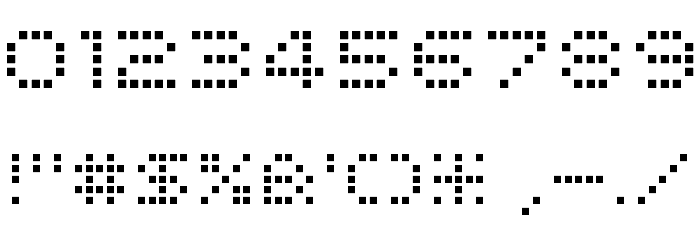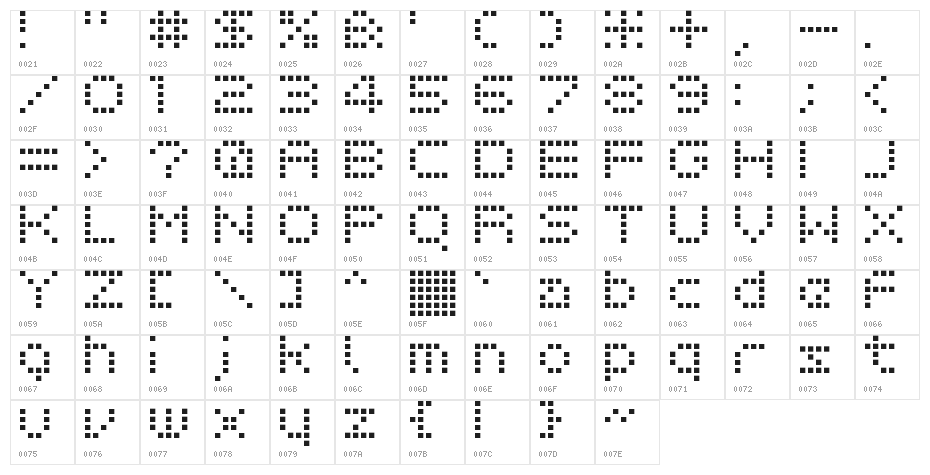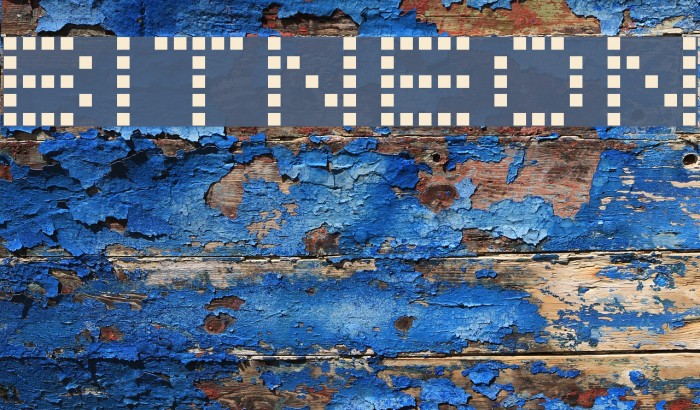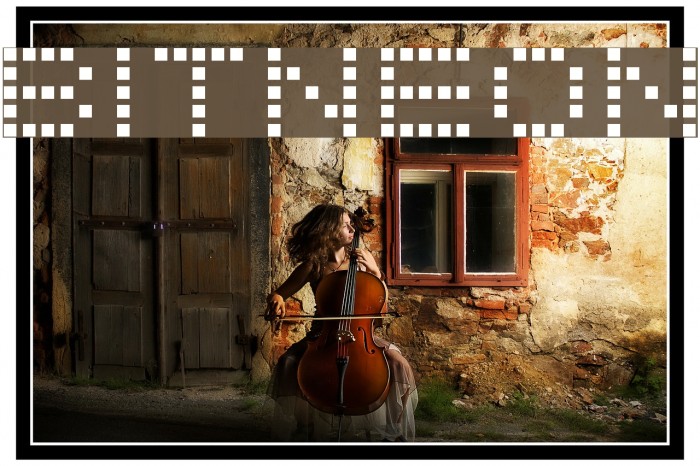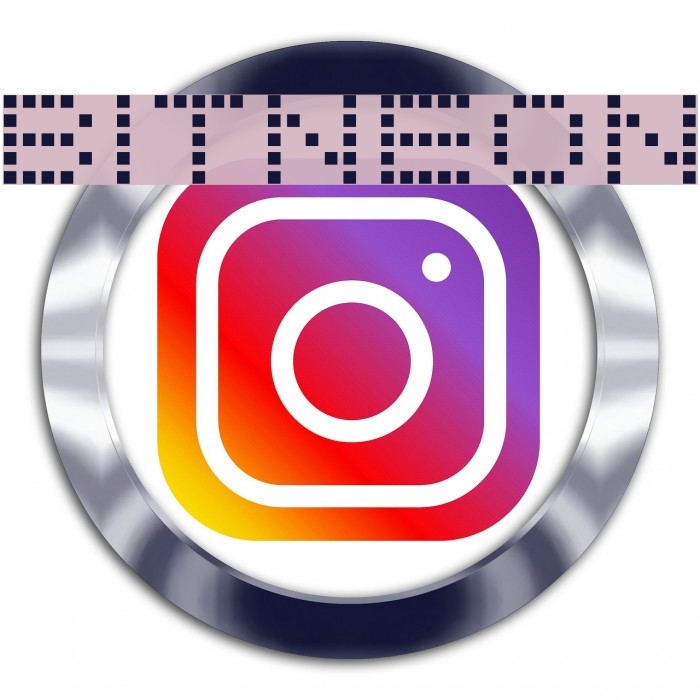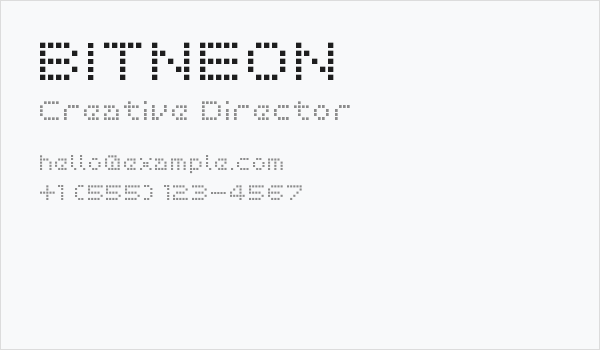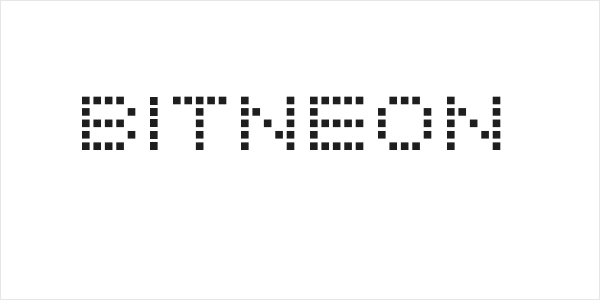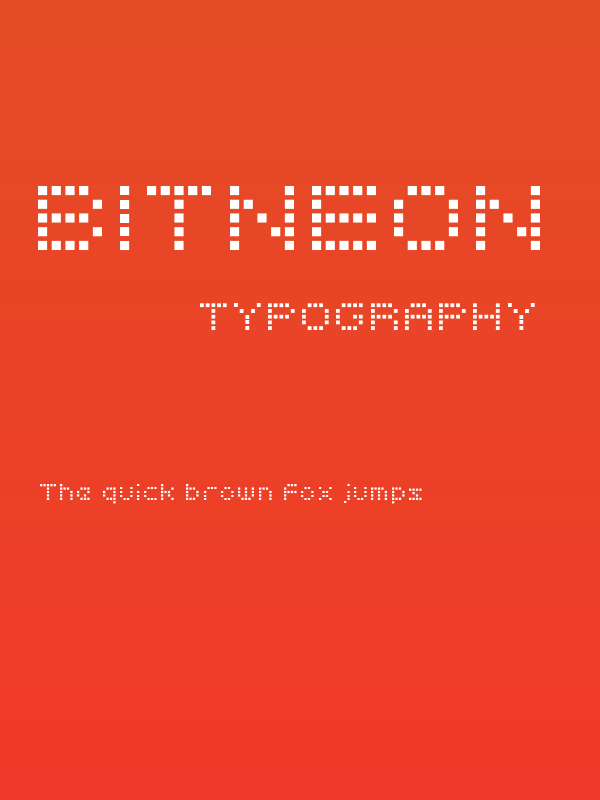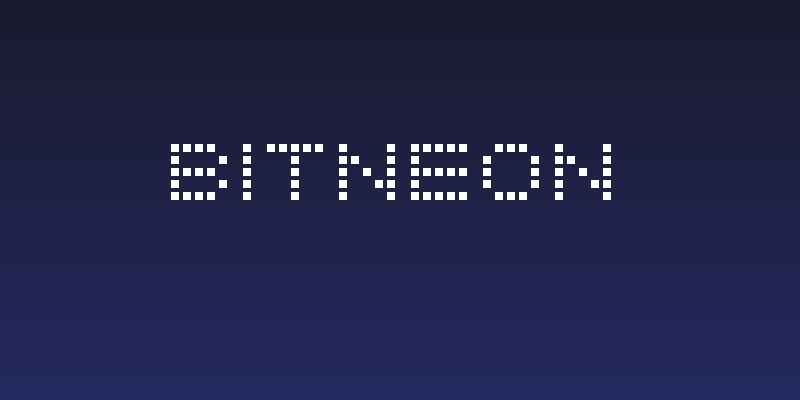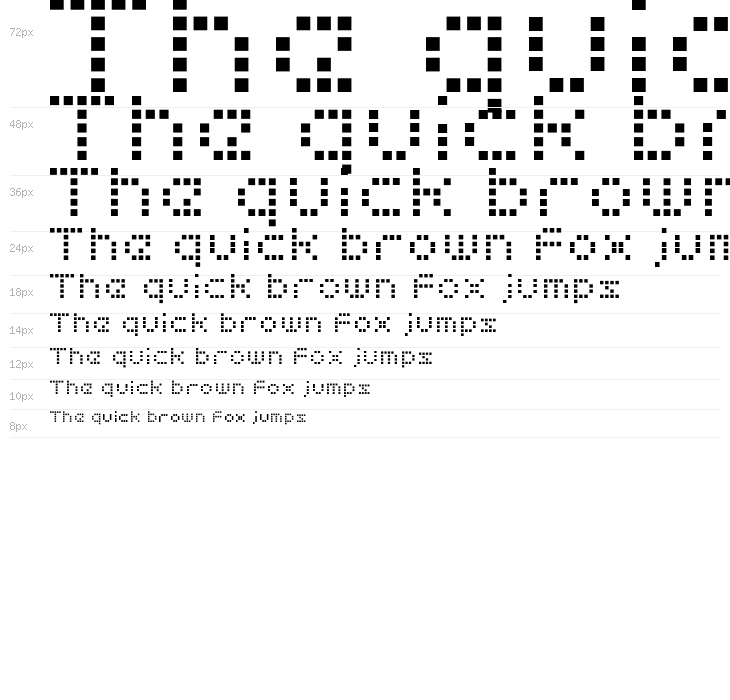
BITNEON Font
BITNEON Description
This font features a unique design composed of small, evenly spaced dots forming each character. The style is reminiscent of digital displays or LED screens, giving it a modern and technological feel. Each letter and number is constructed with precision, maintaining a consistent grid-like pattern that enhances readability while providing a distinct aesthetic. The font is versatile, suitable for projects that require a futuristic or digital touch. Its clean and structured appearance makes it ideal for use in tech-related designs, digital interfaces, or any creative work that aims to convey innovation and modernity.
| Use Case | Headlines, Logos, Digital displays |
| Proposed Projects | Ideal for digital interfaces, tech branding, futuristic designs, and electronic displays. |